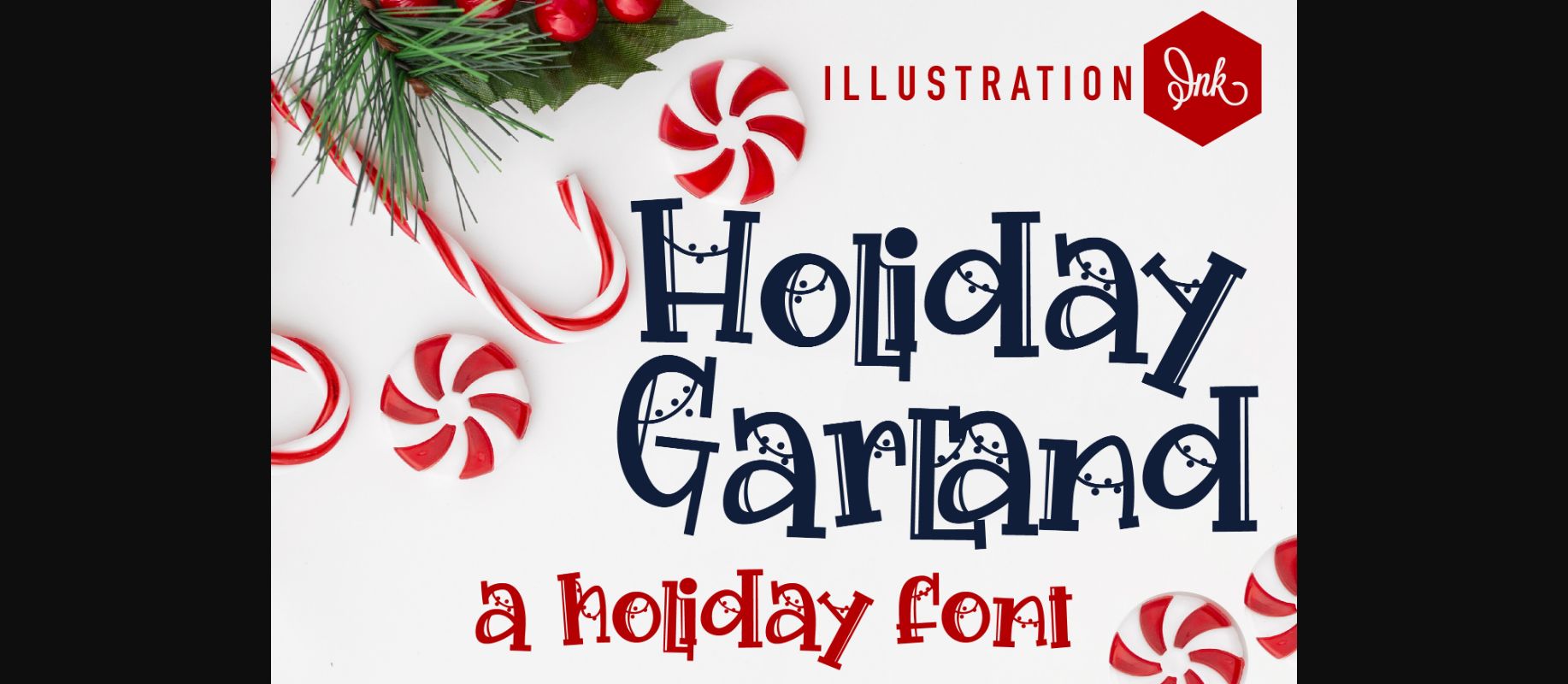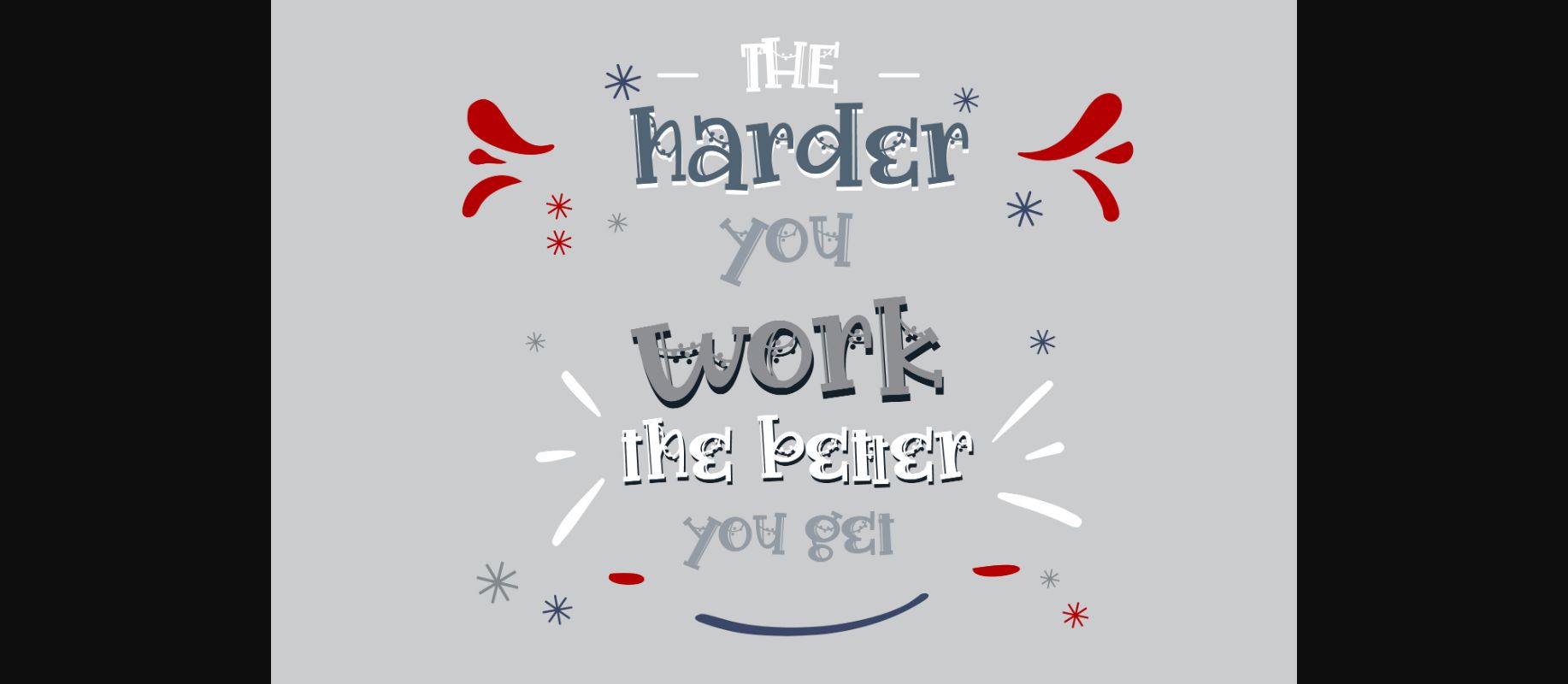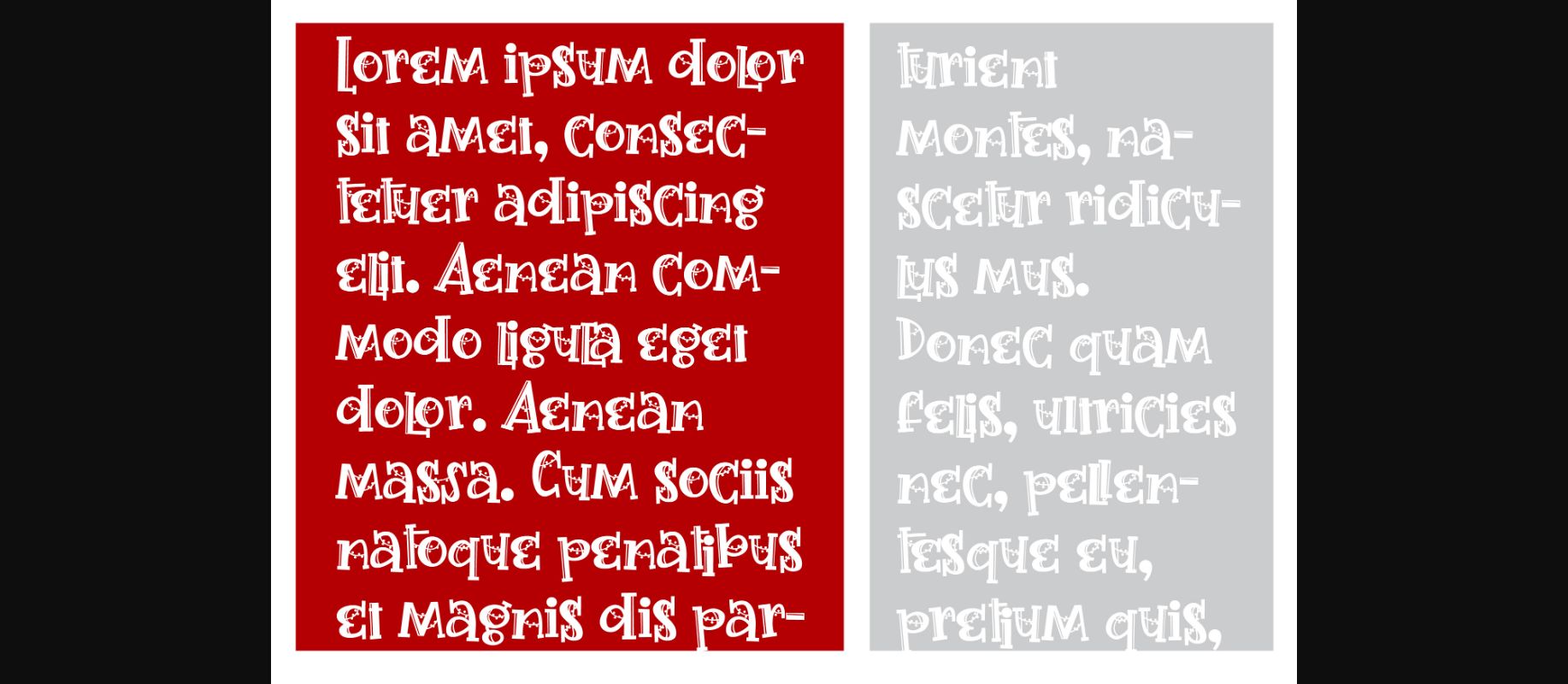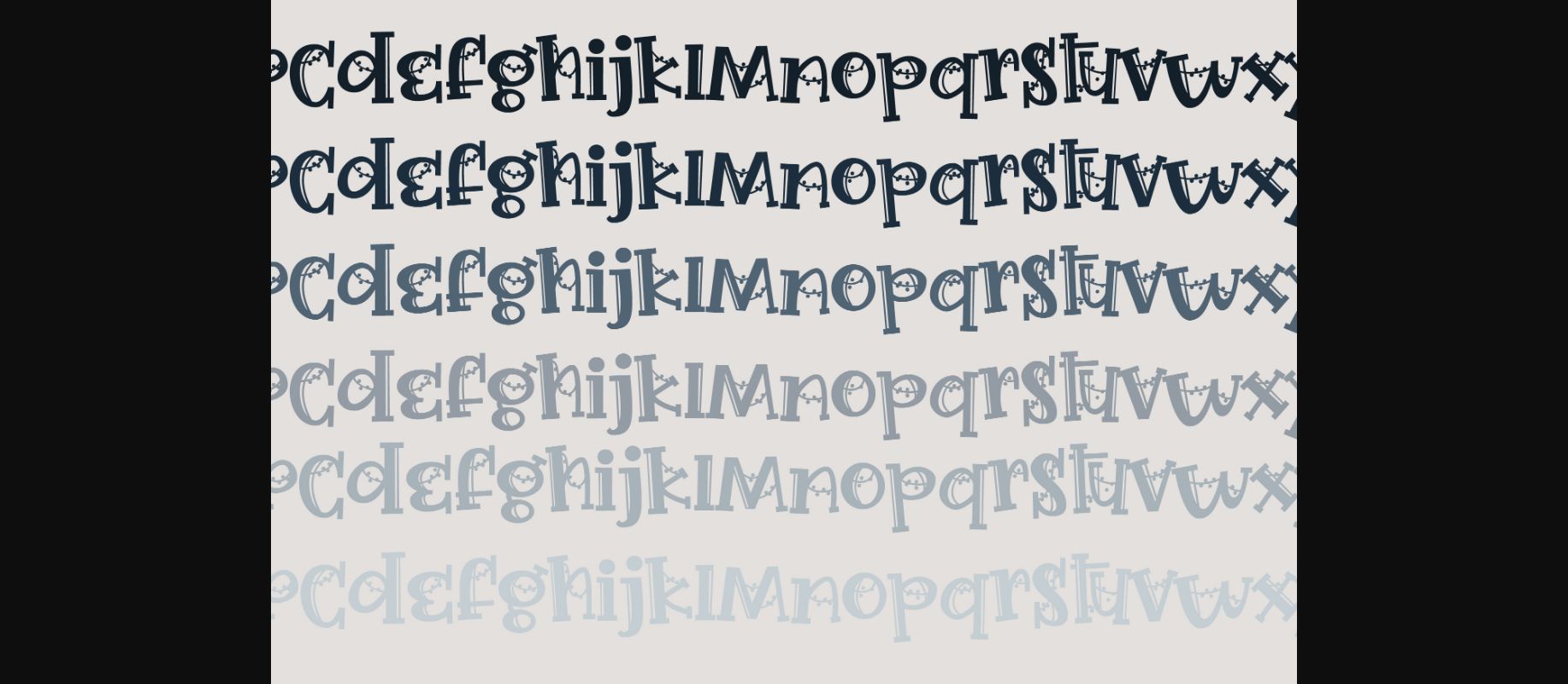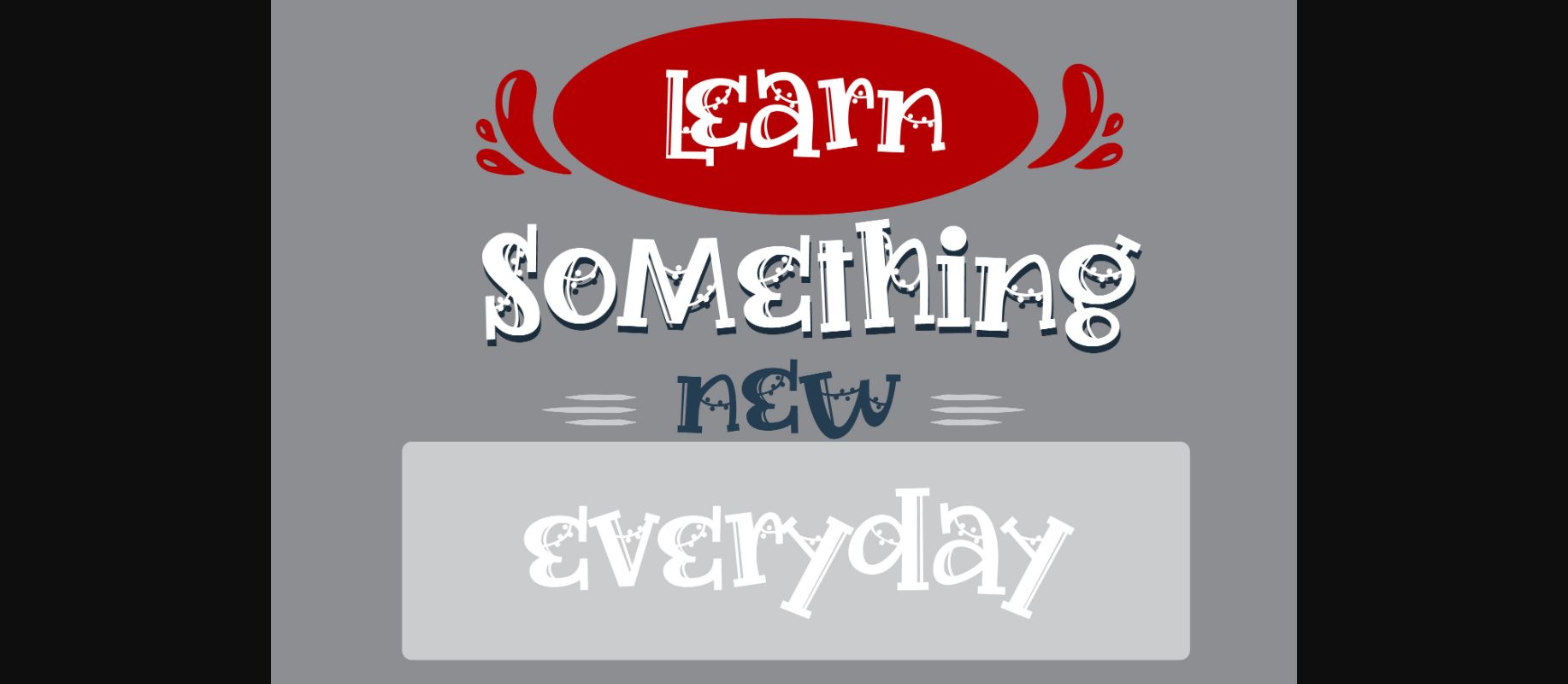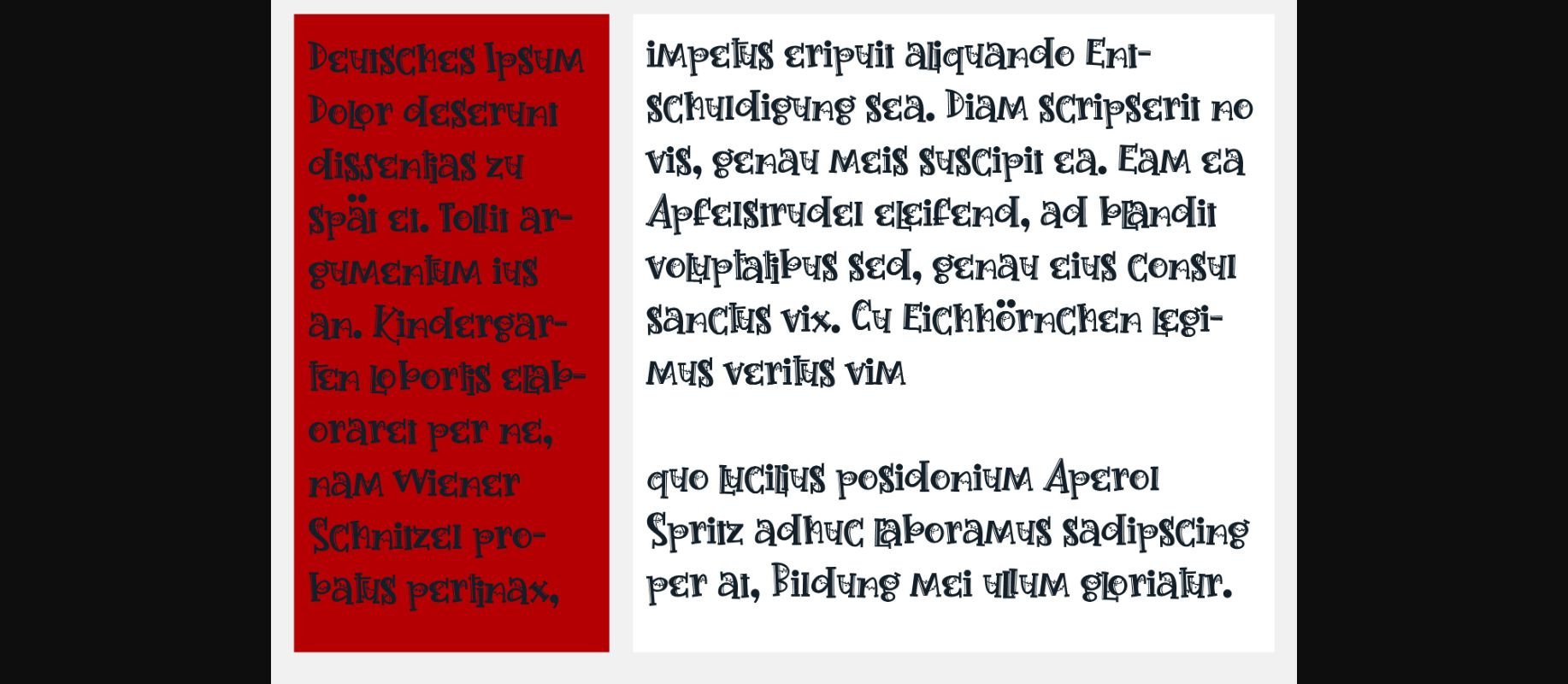
Holiday Garland Font
About Holiday Garland Font
This hand-crafted font features Christmas garland on serif lettering.
A hand-crafted font is a font that is designed to look like it was written by hand. It is often used for invitations, greeting cards, and other items. Handwritten fonts can be either formal or informal, and they can be used for a variety of purposes.
Handwritten fonts can be a great way to add a casual touch to your designs. They can also be used to create a sense of nostalgia or whimsy. However, it is important to choose a handwritten font that is appropriate for the project you are working on. A formal handwritten font may not be appropriate for a casual invitation, while an informal handwritten font may not be appropriate for a corporate document.